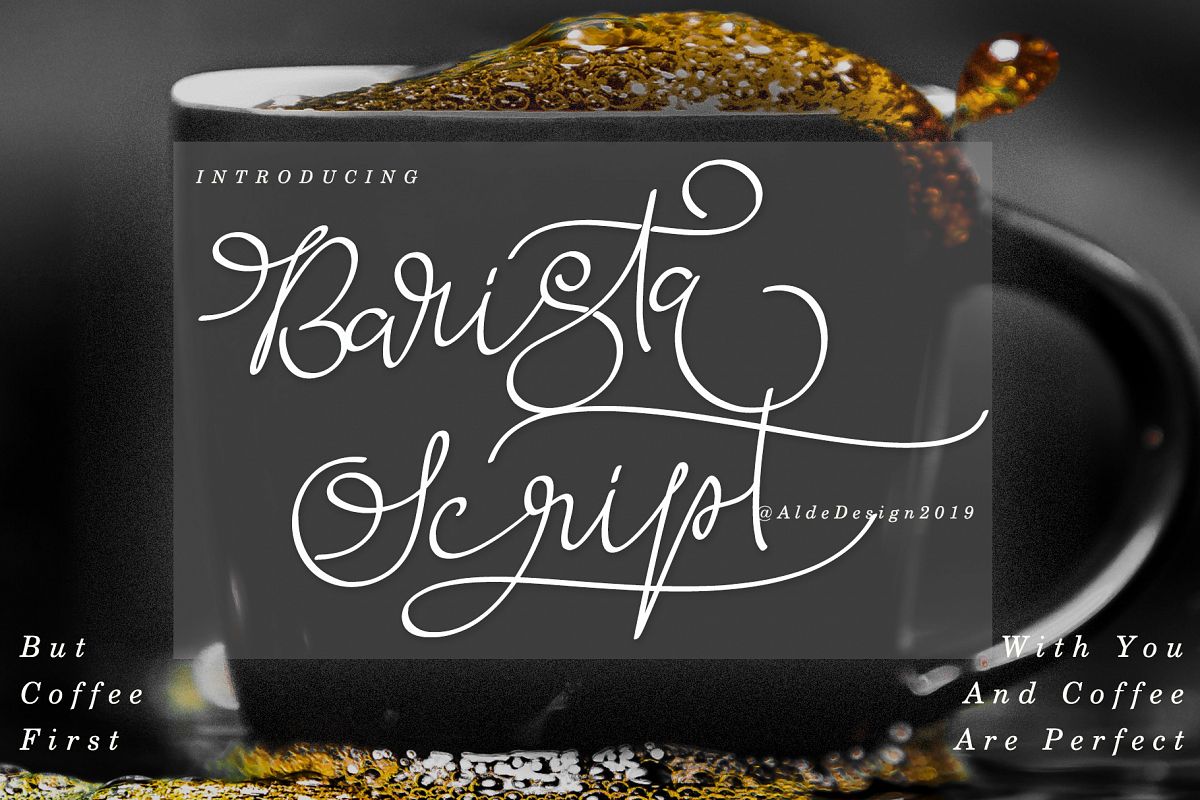
Barista Script Font
Barista Script is a stylish and unique signature font that is easy to remember. It’s great for unique branding, photo overlays, watermarks, business cards, invitations, and much more!WeI have more great and artistic fonts.
• Stylish handwritten style
• Special Ligatures